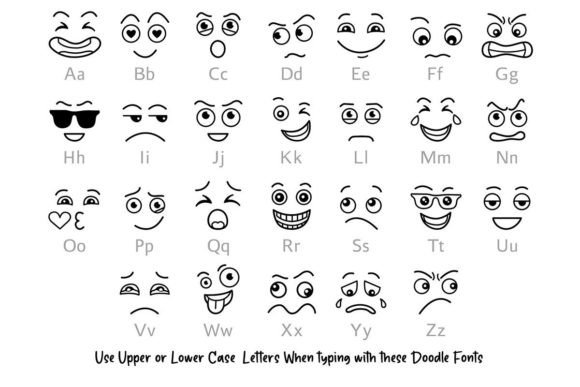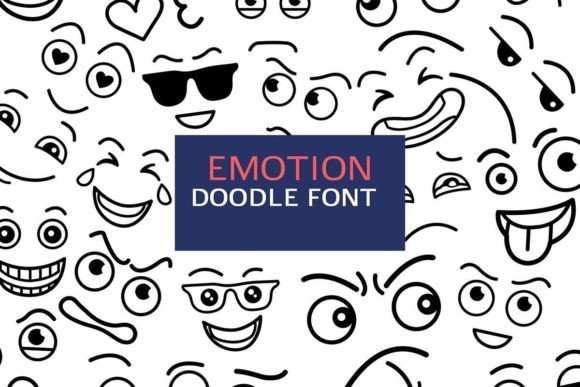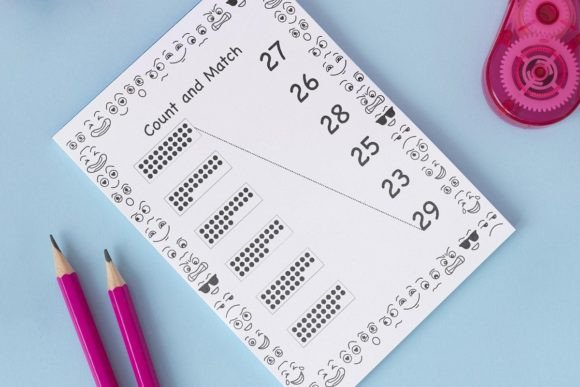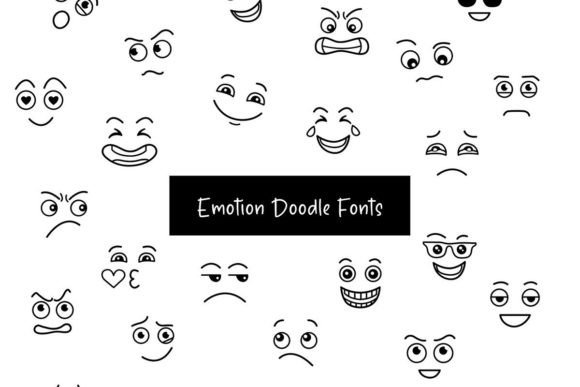
Emotion Doodle Font
About Emotion Doodle Font
The Emotion Doodle font is a delightful and expressive dingbat font that brings a playful touch to your projects. With its charming collection of doodles and symbols representing various emotions and facial expressions, this font allows you to infuse your designs with fun and character.
Whether you’re working on scrapbooking, creating personalized cards, designing stickers, or enhancing your planner pages, the Emotion Doodle font offers a wide range of adorable and relatable doodles to choose from. From happy and sad faces to excited and surprised expressions, each symbol captures the essence of different emotions, allowing you to convey feelings visually.
The versatility of the Emotion Doodle font makes it suitable for a variety of projects. You can incorporate these cute doodles into digital designs, such as social media graphics, website elements, or digital journals, to add a touch of whimsy and personality. The expressive symbols will help you connect with your audience on an emotional level, making your designs more engaging and relatable.
Furthermore, the Emotion Doodle font can be used in printed materials to create playful and eye-catching visuals. Whether you’re designing posters, flyers, or activity books, the charming doodles can bring your content to life, making it more interactive and enjoyable. Readers will love exploring the different emotions depicted in the font and connecting with the characters they represent.
In addition to its decorative purposes, the Emotion Doodle font can also be used as a teaching tool or therapeutic resource. Teachers can incorporate the font into educational materials to help children understand and express their emotions. Therapists and counselors can use the font in activities and worksheets to facilitate discussions about feelings and promote emotional well-being.
Crafters will also find endless possibilities with the Emotion Doodle font. From customizing clothing items to embellishing home decor, the playful doodles can be used to add a touch of personality and fun to various craft projects. Let your creativity run wild and explore the countless ways to incorporate these cute symbols into your creations.
In conclusion, the Emotion Doodle font is a playful and cute dingbat font that allows you to add a whimsical touch to your projects. Its versatile collection of expressive symbols representing different emotions opens up a world of creative possibilities. So, feel free to confidently use the Emotion Doodle font in your craft projects, designs, planners, diaries, activity books, or anything that your heart desires, and watch as your creations come to life with a burst of joy and playfulness.